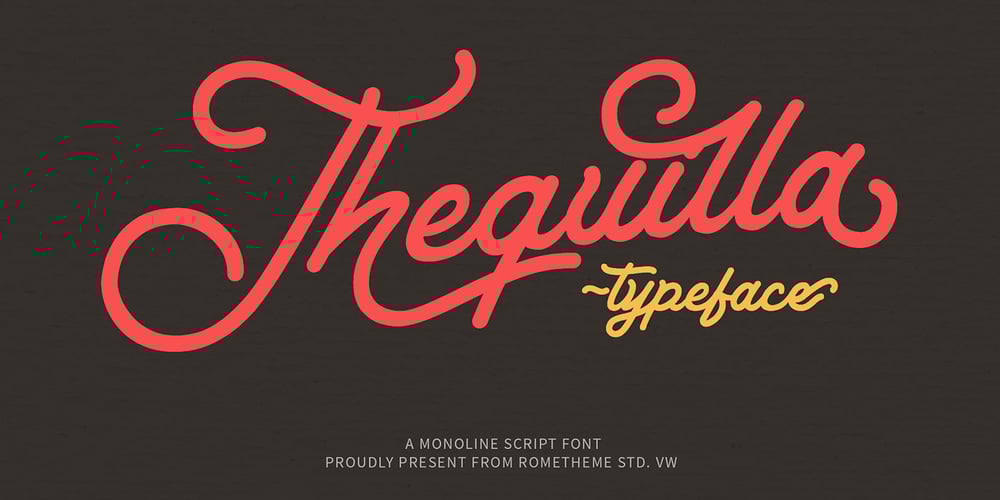
Thequilla
Thequilla font
Thequilla Font Family was designed by Yahdi Kumala and published by Rometheme. Thequilla contains 1 styles and family package options. Thequilla is vintage monoline script font. It has vintage, elegant, old school, classy, and cool. It’s a great font for fashion, apparel projects, signature, album cover, logo, branding, magazine, social media, & advertisements, but also works great for other projects.Highlight:- Easy instalation- Work on PC or Mac- PUA Encoded Support- Basic Latin A-Z and a-z- Numbers- Symbols- No special software is required, The fonts can be opened and used in Adobe Illustrator, Adobe Photoshop, Adobe InDesign, even work on Microsoft Word.